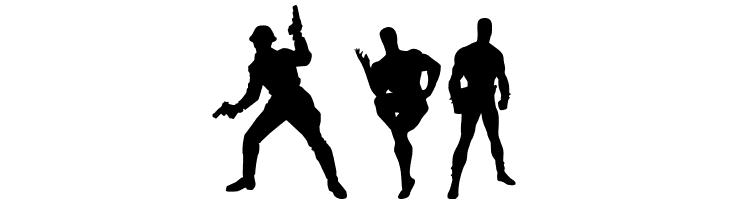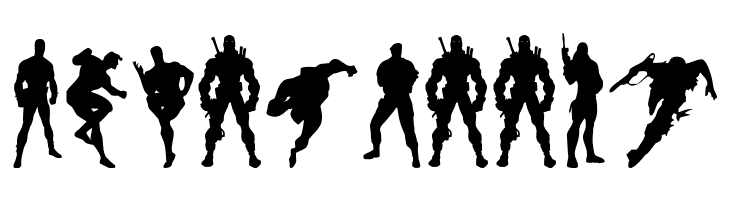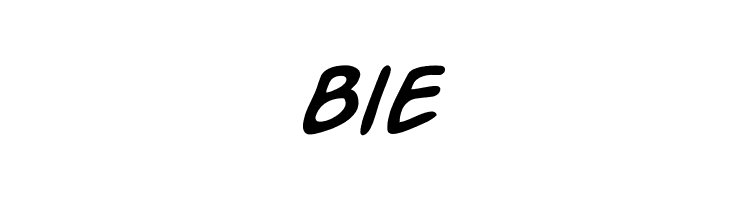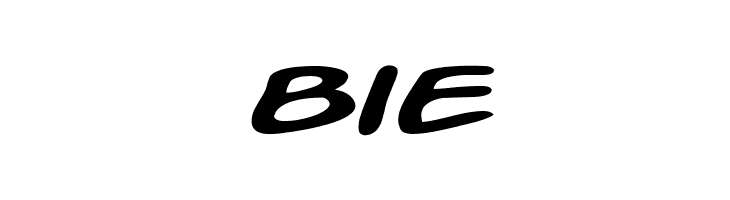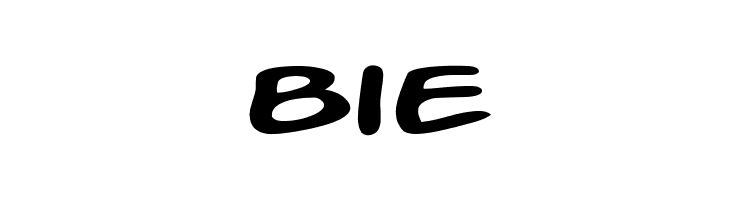
• Action Man Bold
A bold, playful font with rounded, hand-drawn style strokes.
• Action Man Bold Italic
A bold, italicized font with a playful and dynamic style.
• Action Man Extended
A bold, playful font with rounded, smooth letterforms and a slight slant.
• Action Man Extended Bold
A bold, playful font with rounded edges and a cohesive, friendly style.
• Action Man Extended Bold Italic
A bold, italicized, and extended font with a playful and dynamic style.
• Action Man Extended Italic
A bold, italicized font with smooth, rounded strokes and an extended form.
• Action Man Italic
A bold, italicized handwritten font with a dynamic and energetic style.
• Action Man Shaded
A bold, shaded font with a playful, comic book style.
• Action Man Shaded Italic
A bold, italic font with a playful, shadowed style.
• Action Men